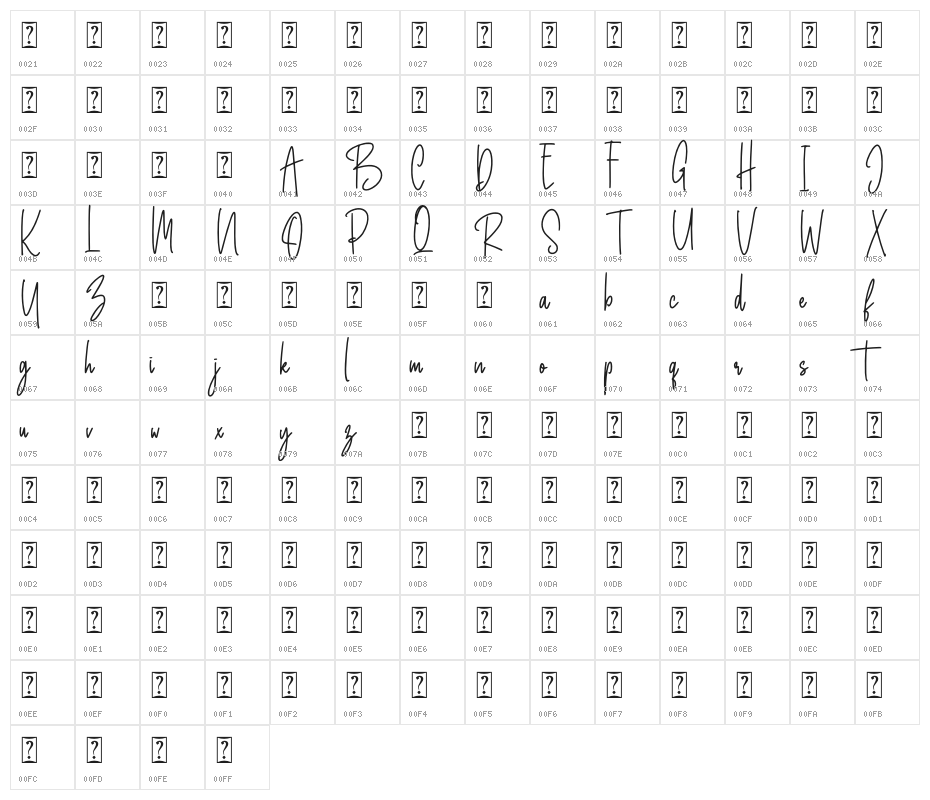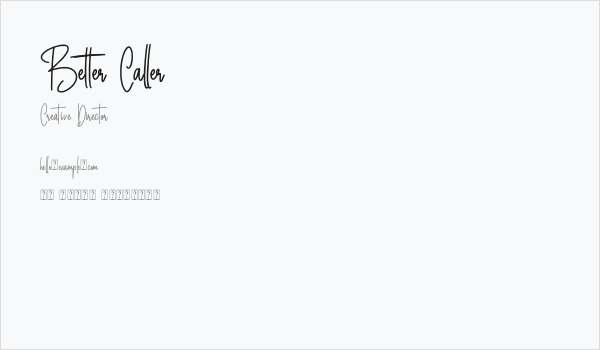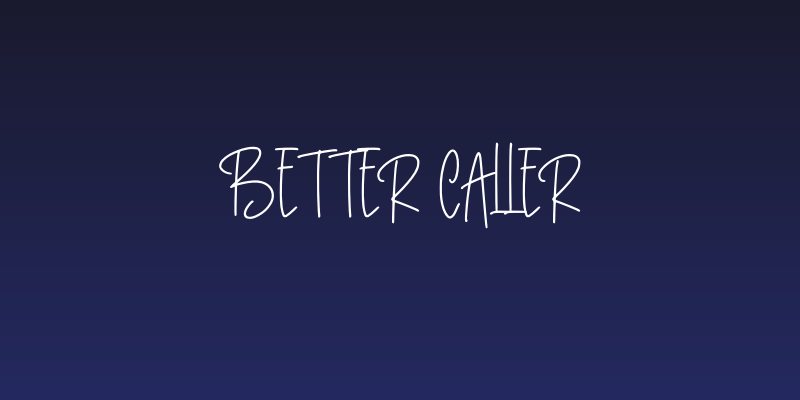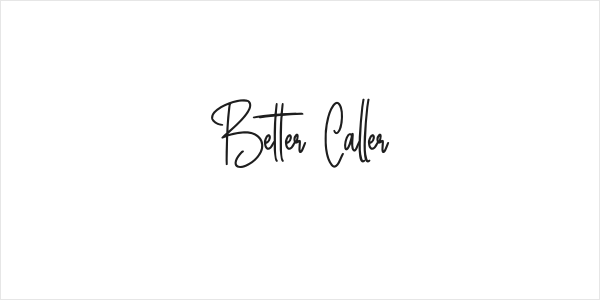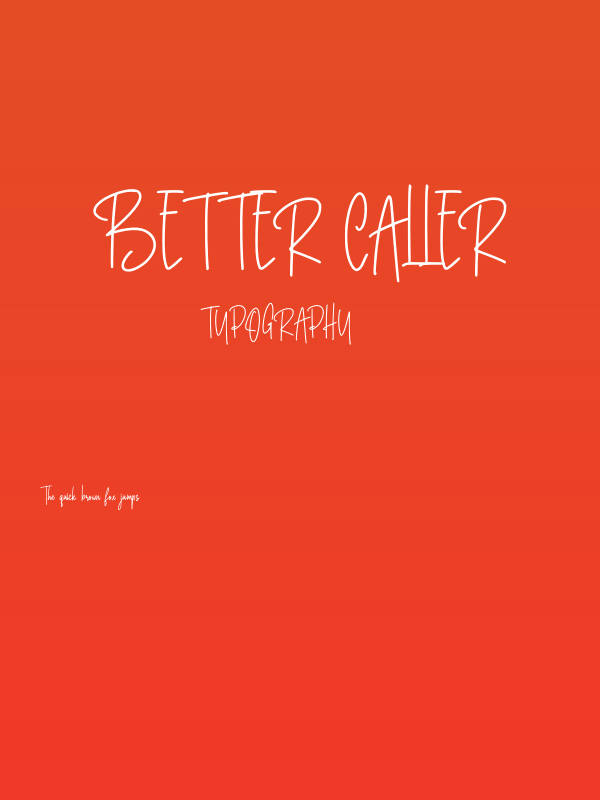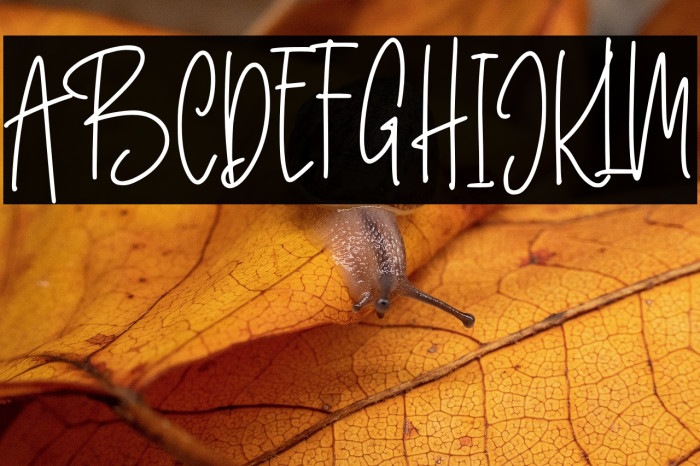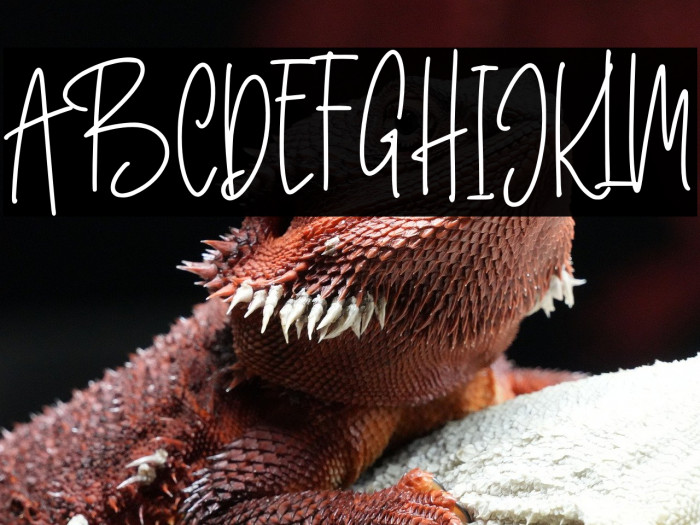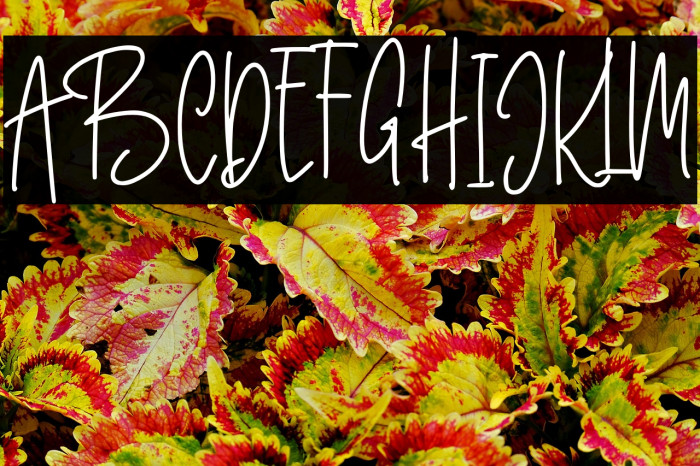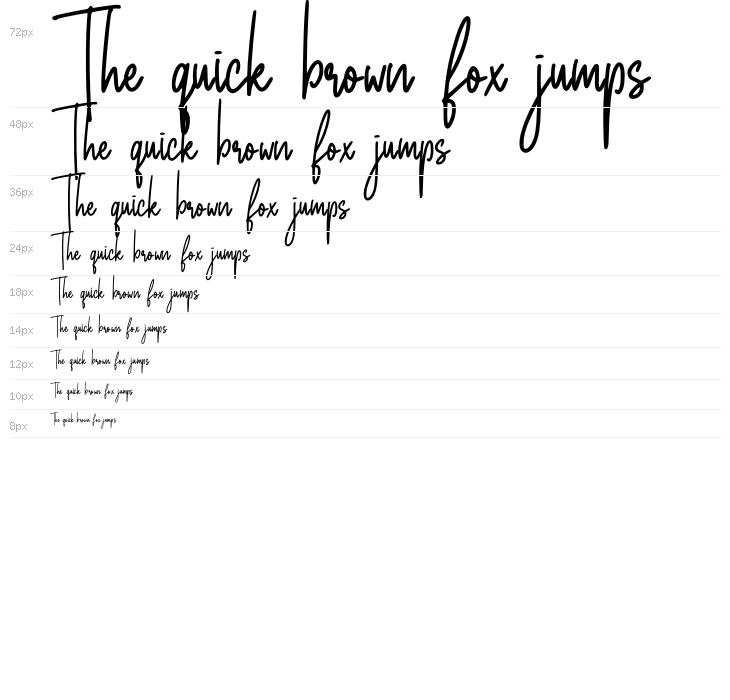
Better Caller Font
Better Caller Description
This font features a dynamic and expressive handwritten style, characterized by its elongated and fluid letterforms. The uppercase letters are tall and narrow, with a playful, almost whimsical quality. The lowercase letters maintain a consistent flow, with some letters featuring unique loops and curves that add to the font's charm. The overall appearance is casual yet sophisticated, making it suitable for projects that require a personal touch. The font's unique style is further enhanced by its irregular baseline, giving it a lively and energetic feel.
| Overall Style | Casual, Artistic |
| Proposed Projects | Ideal for greeting cards, invitations, personal branding, and creative projects that require a personal, artistic touch. |